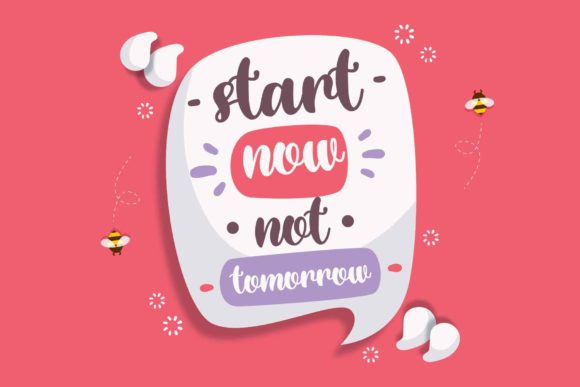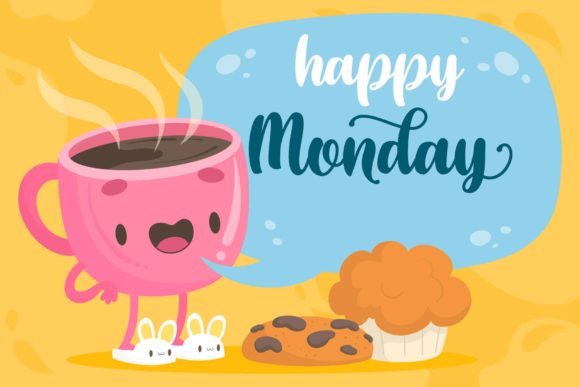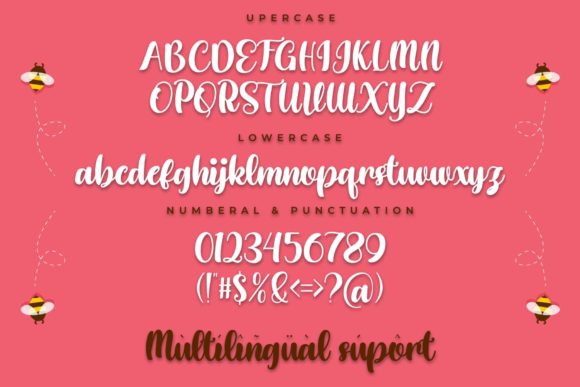
Introduction to Honey Shake Font
Honey Shake is a sweet handwritten font with characters that dance along the baseline.
It has a casual, yet elegant touch It can be used for various purposes such as logos, wedding invitations, headings, t-shirts, letterhead, signage, labels, news, posters, badges and so much more.